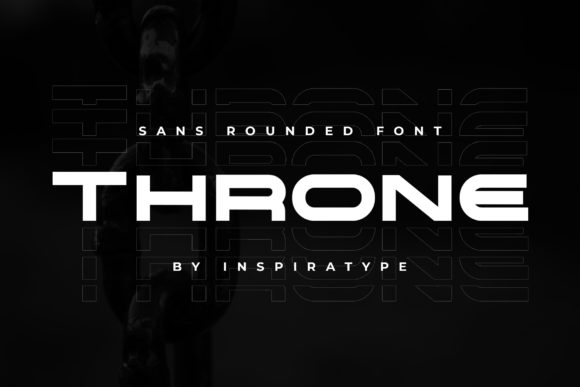
Feast your eyes on Throne Font, the futuristic display font that will take your designs to the next level. With its sharp angles and sleek curves, Throne exudes a bold and modern aesthetic, perfect for captivating your audience.
Unleash your creativity with Throne Font, a versatile masterpiece that will elevate any design project. Whether you're crafting eye-catching posters, designing logos that leave a lasting impression, or creating stunning magazine layouts, Throne Font will add a touch of innovation and style.
Step into the future of typography with Throne Font. Its unique character set will make your designs stand out from the crowd, ensuring that your message is delivered with maximum impact. Let Throne Font be your secret weapon in the battle for attention, transforming your designs into masterpieces that inspire and captivate.
With Throne Font, you're not just downloading a font; you're embracing a design revolution. Join the league of creative visionaries who are pushing the boundaries of design with Throne Font. Let your imagination soar as you explore the endless possibilities that await you.